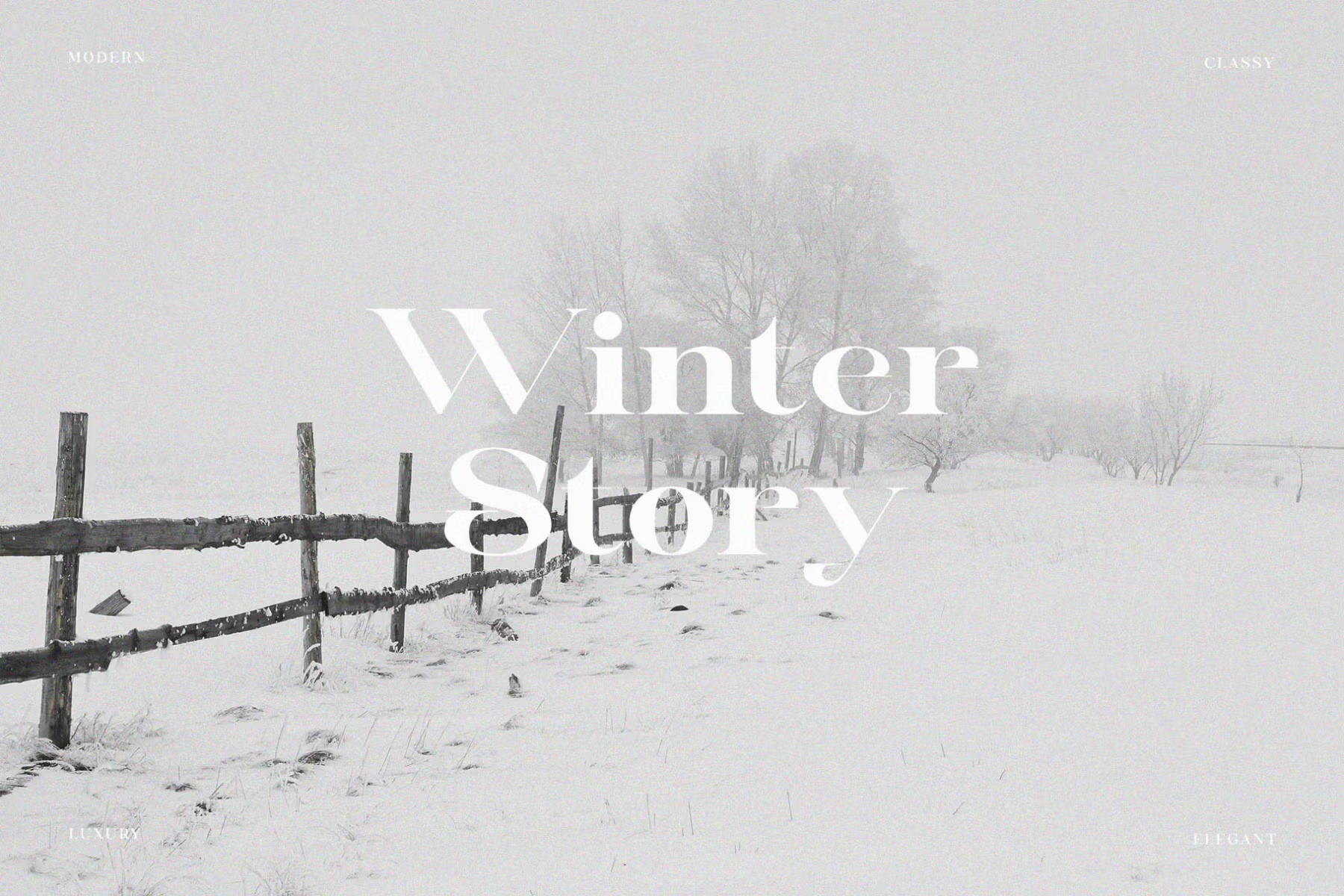
Sillfena is a high-contrast serif with heavy curves and very thin hairlines. The lowercase a trails a long tail, and ball terminals on letters like f and r give it a soft, slightly retro feel. In white over a snowy field, Winter Story in the specimen looks like the title of a film poster.
Best uses for Sillfena
- Beauty and cosmetics brands
- Fashion editorials
- Wedding invitations
- Film and book titles
- Boutique logos
Sillfena pairs well with a light sans. Montserrat works for small text, as in the specimen. Lato suits longer copy. For a script accent, try Great Vibes.
Sillfena Serif Font